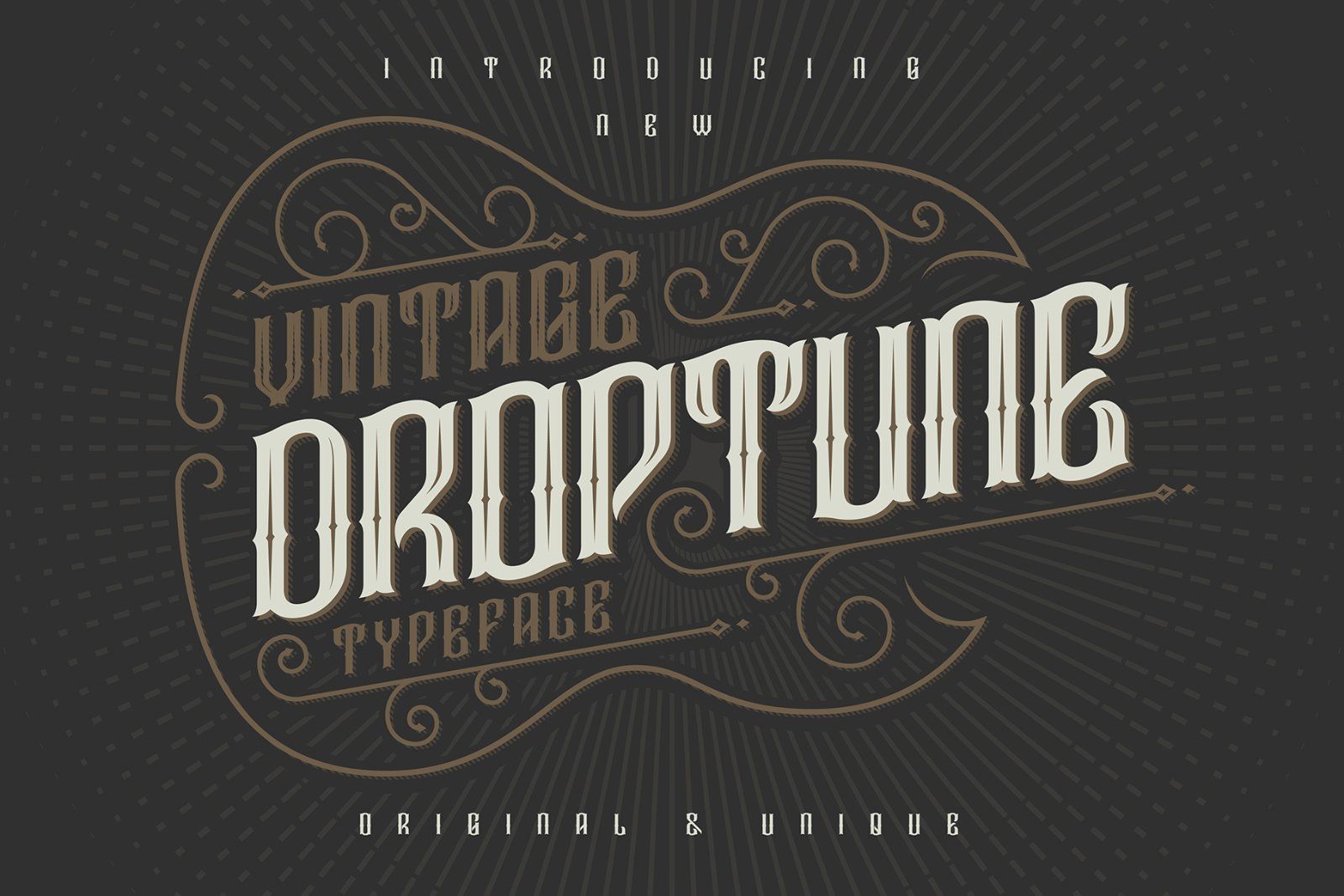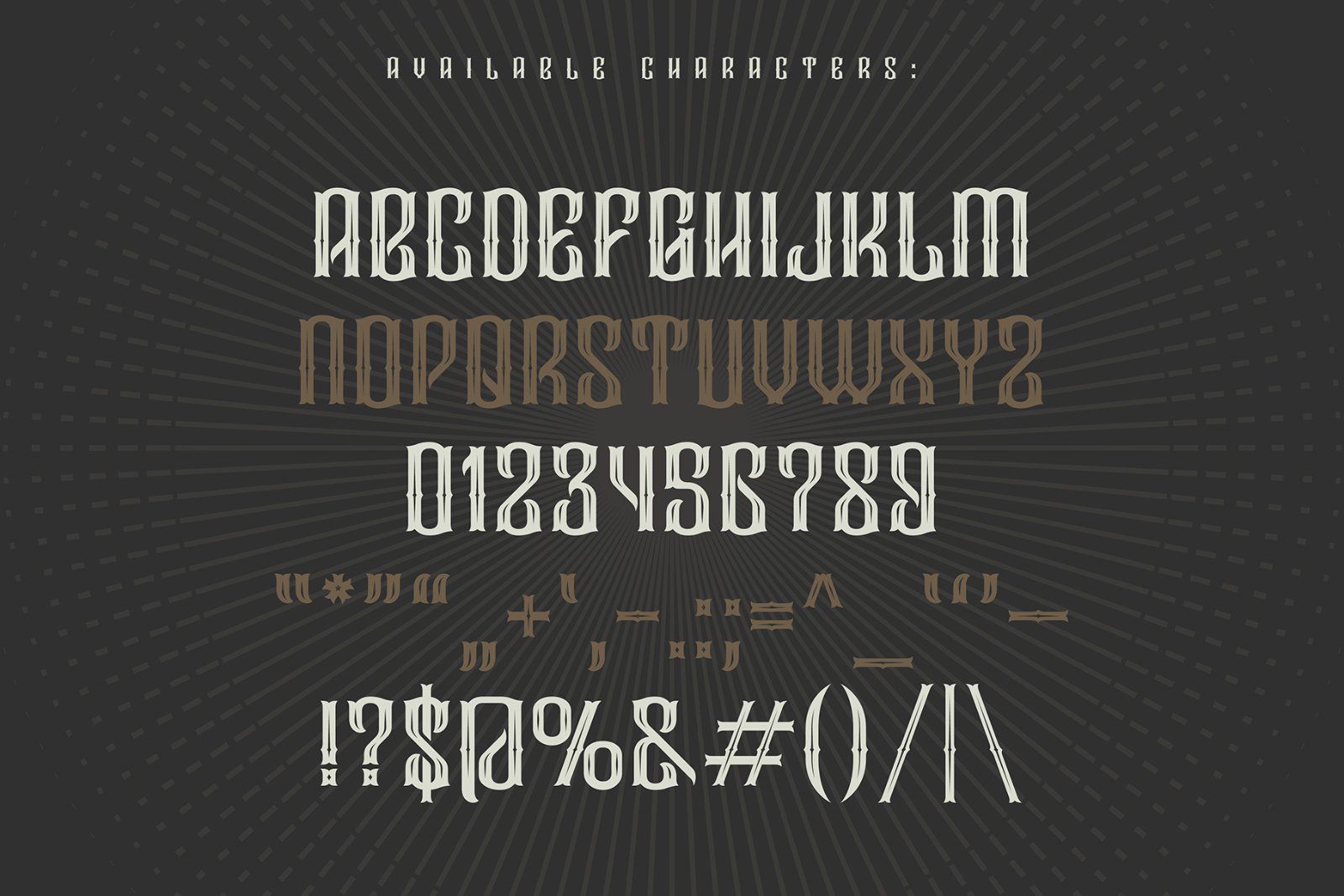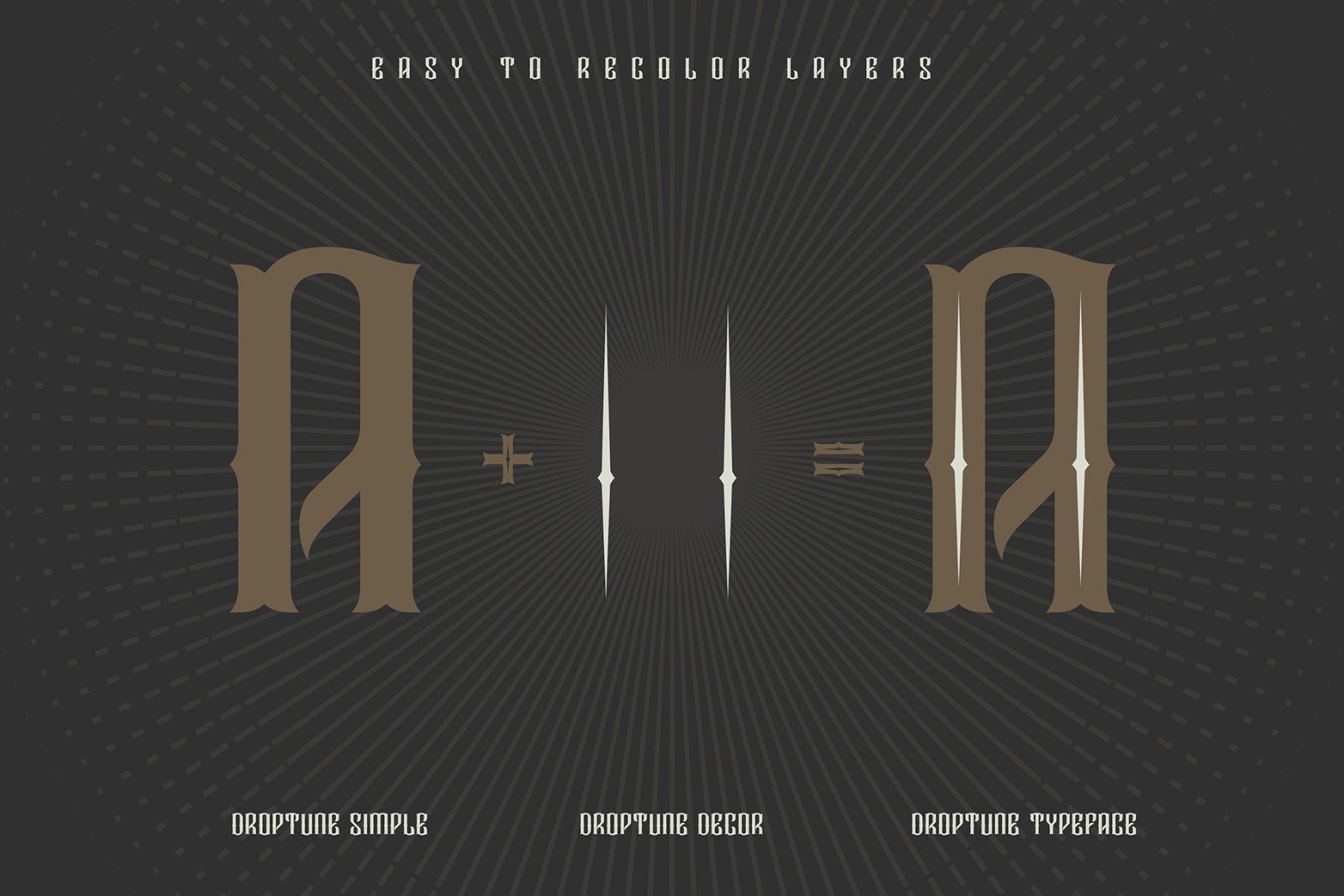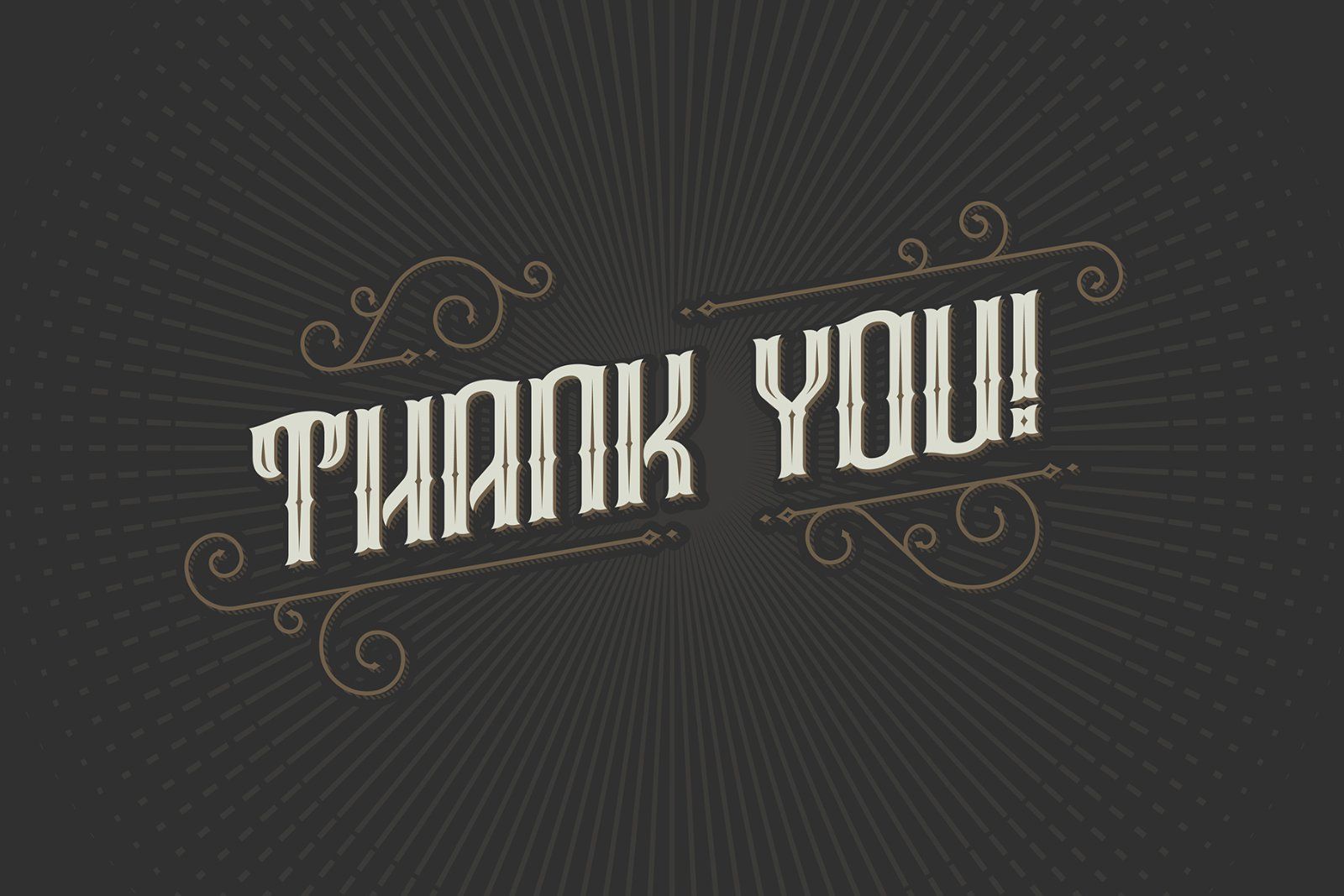
Hi! Introducing my new font named "Droptune". Dark riffs, strong rhythm, low frequencies — it's all about heavy music, and, I hope, about this typeface :)
Note: the font contains only Latin letters (all the characters you can see on second screenshot)